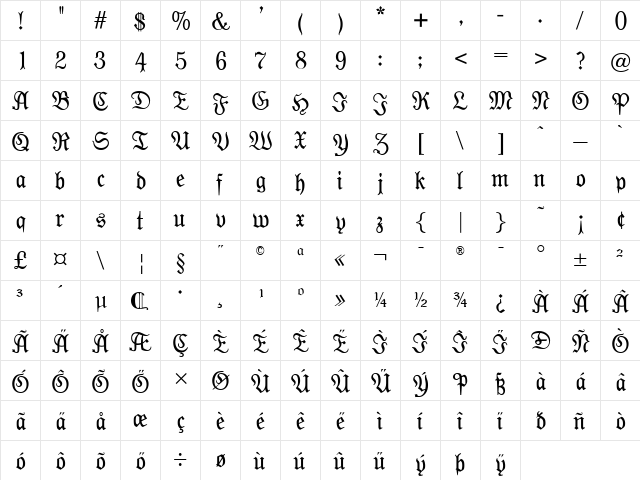
Moderne Fraktur UNZ1 Regular
Design Context for Moderne Fraktur UNZ1 Typeface
Moderne Fraktur UNZ1 draws on the rich tradition of blackletter calligraphy, with dense, angular strokes that evoke medieval manuscripts and old-world craftsmanship.
Well-suited to band logos, craft beer branding, tattoo lettering, and heritage-themed identities.
Font Pairing: Pair with a clean neutral sans-serif for body copy to let Moderne Fraktur UNZ1's character lead without overwhelming the composition.
Pro Tip: Use Moderne Fraktur UNZ1 sparingly at large sizes. Even a single word set in blackletter can define the visual register of an entire design.